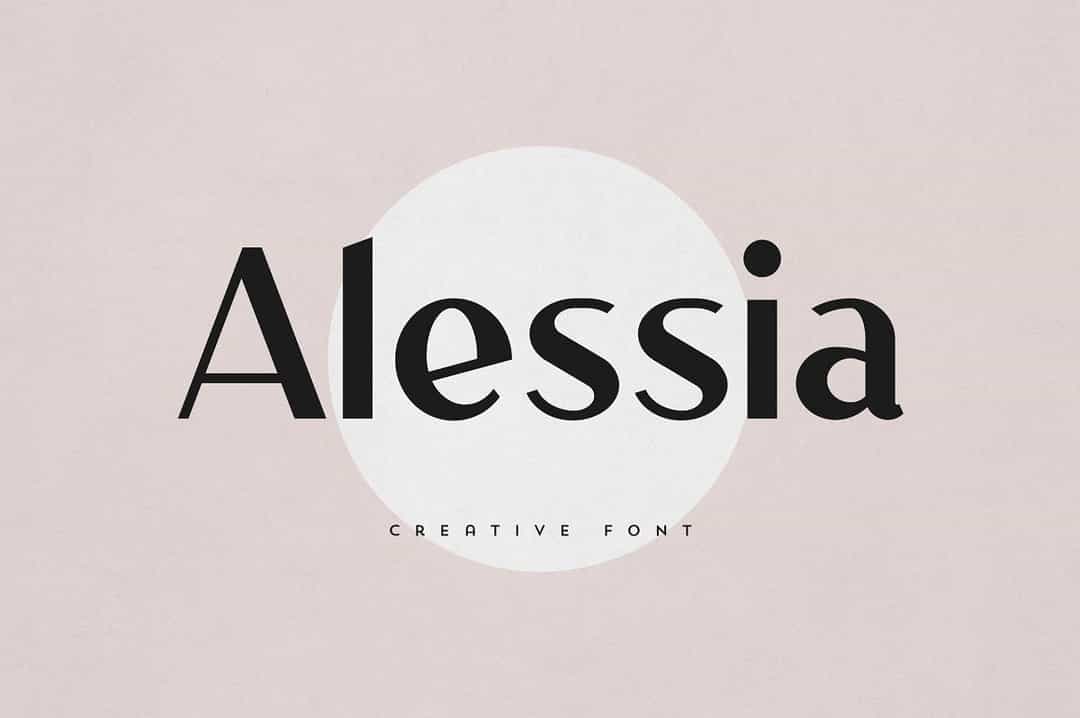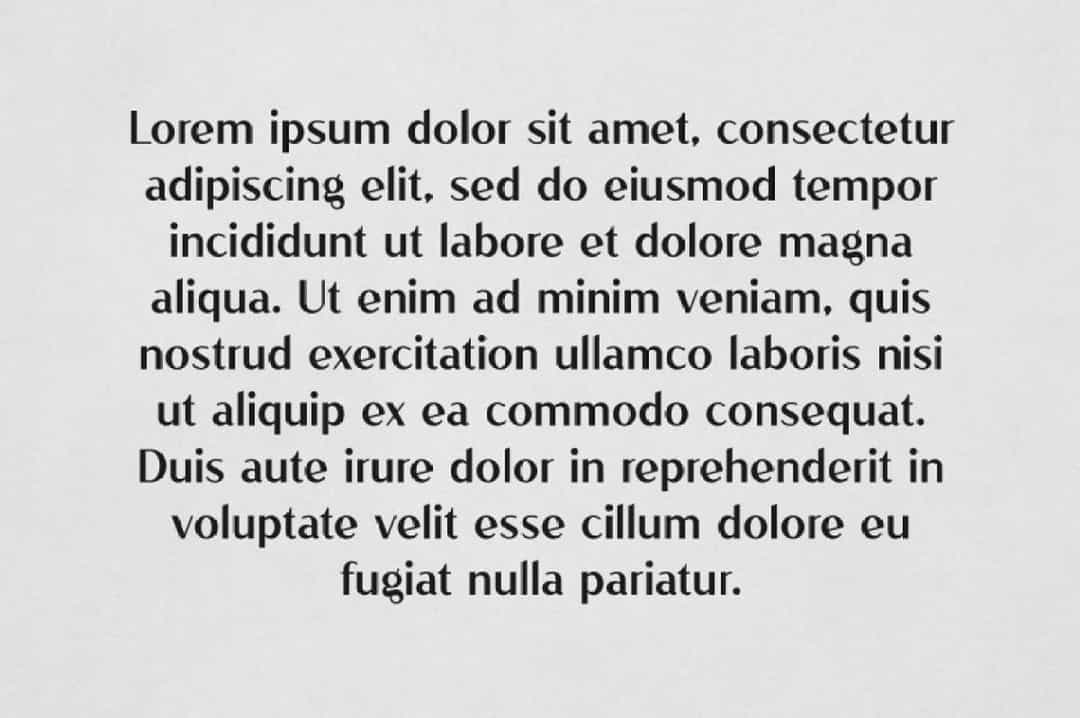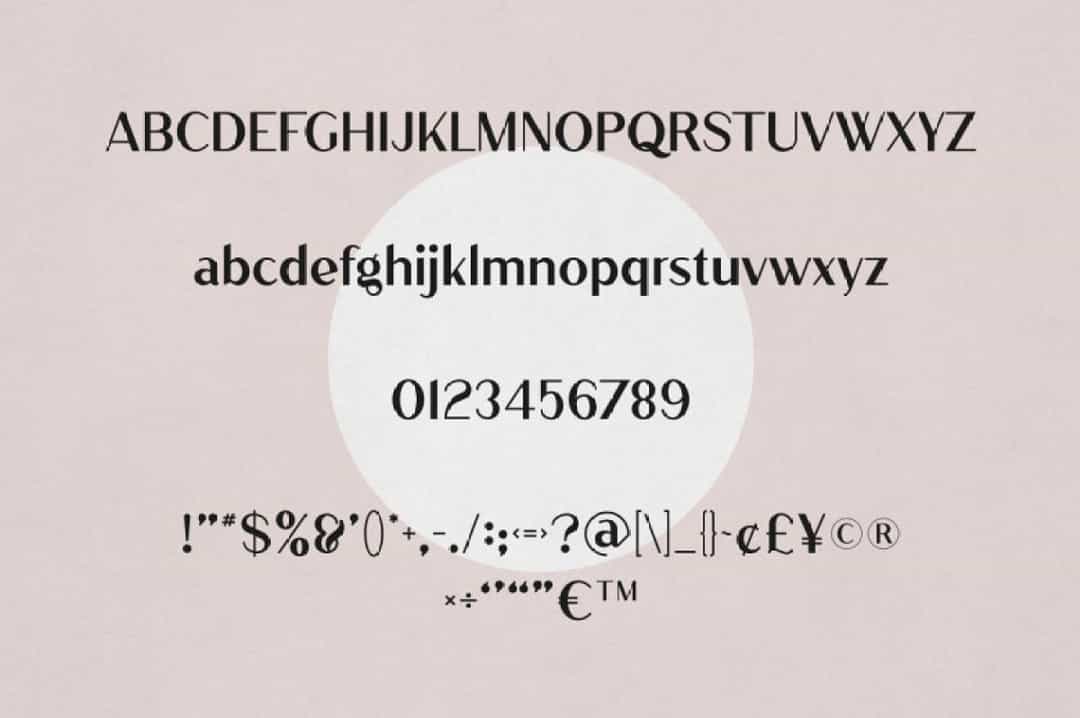
Alessia is a sleek and flexible display typeface that will bring style to any typography project! Perfect for logos, branding or simple text – Alessia stands out as an eye-catching centerpiece to any headline, logo or simple text! Ideal for branding projects such as homeware designs, packaging designs for products and magazine headers as well as serving as an elegant text overlay on images – or used simply as text on any background image!